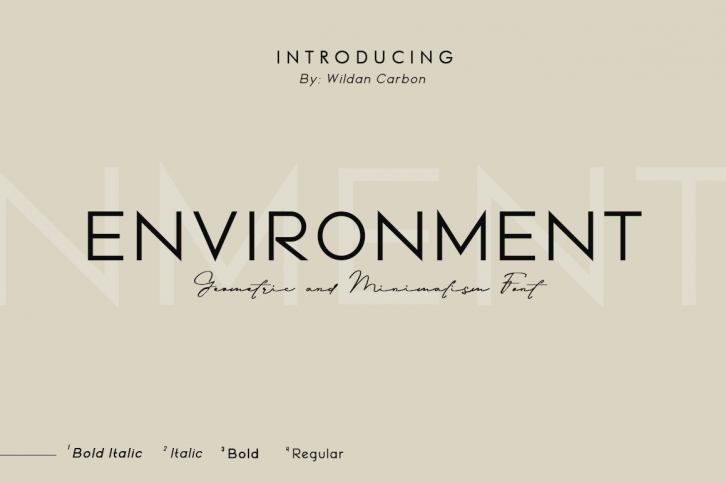
Environment is a great font that was designed by Wildan Carbon Studio. Imagine the amount of combinations you can create using this font! The archive is 19.81 MB and it was released on December 2, 2020. Environment looks beautiful on wedding invitations, greeting cards, logos, posters, labels, t-shirt designs, logos, business cards and is perfect for use in ink or watercolor works, fashion, magazines, packaging and food menus, children's books and more!